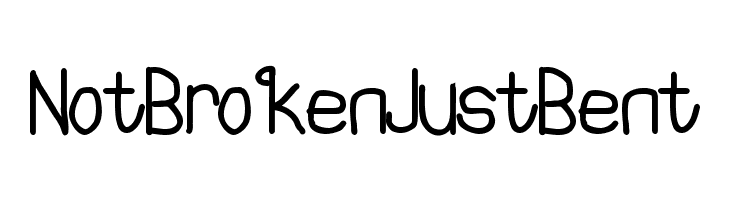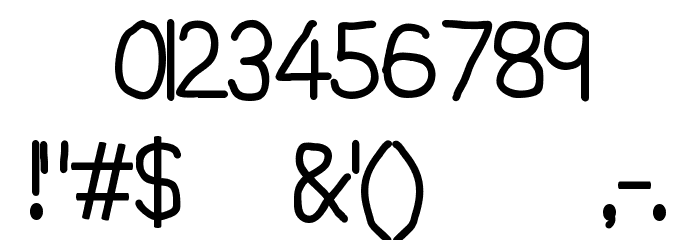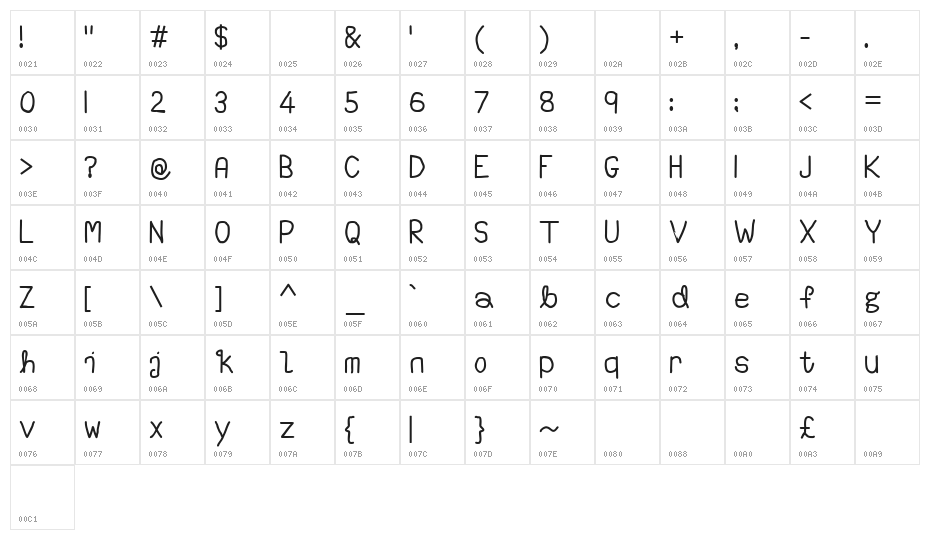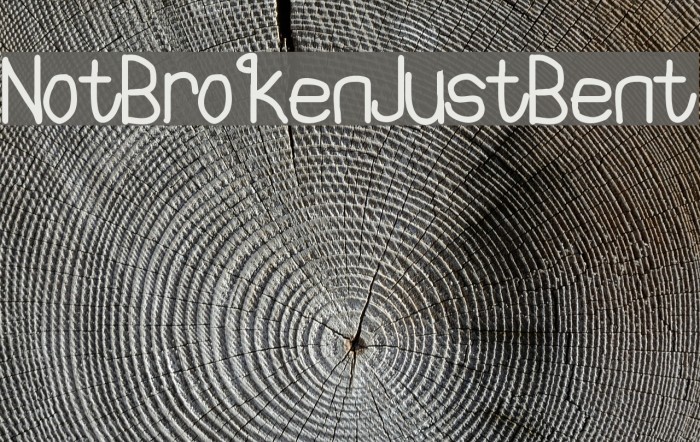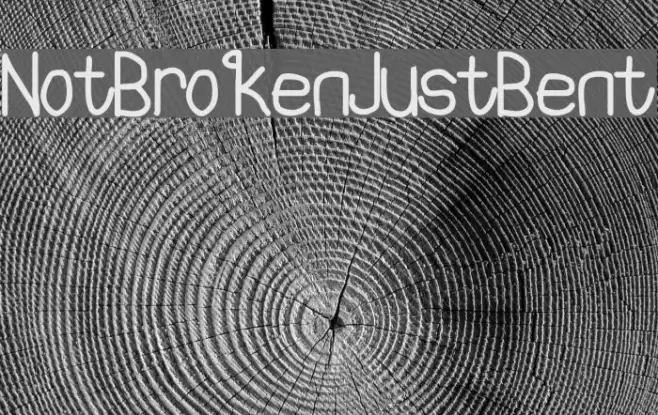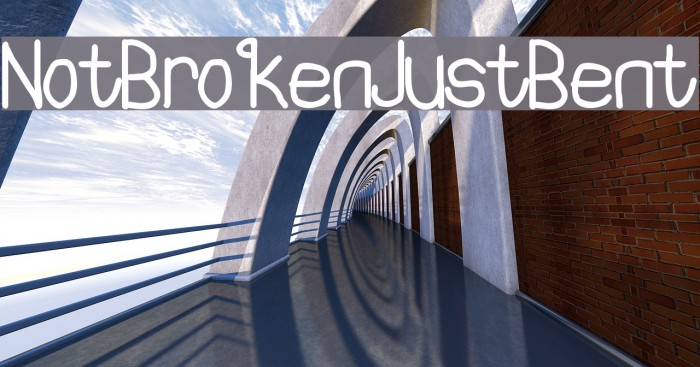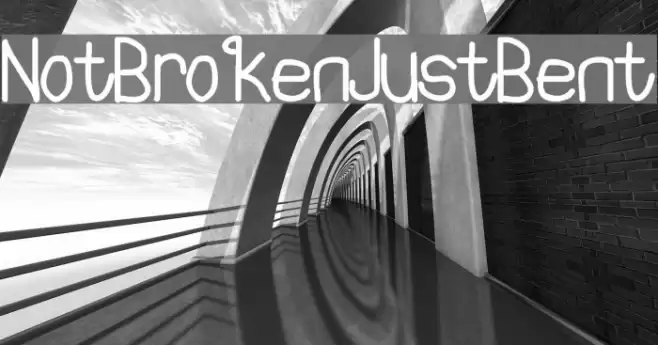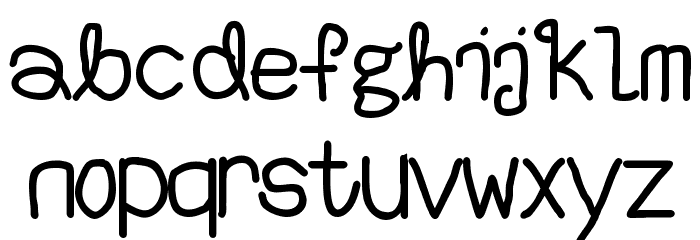
NotBrokenJustBent Font
NotBrokenJustBent Description
This playful and quirky font features a handwritten style with a casual, friendly appearance. The letters are rounded and slightly irregular, giving it a unique charm. The uppercase and lowercase letters maintain a consistent style, with smooth curves and a relaxed feel. Numbers and special characters are designed to match the overall aesthetic, making the font versatile for various uses. Its informal nature makes it suitable for creative projects, adding a personal touch to any design.
| Proposed Projects | Ideal for greeting cards, children's books, playful branding, and social media graphics. |